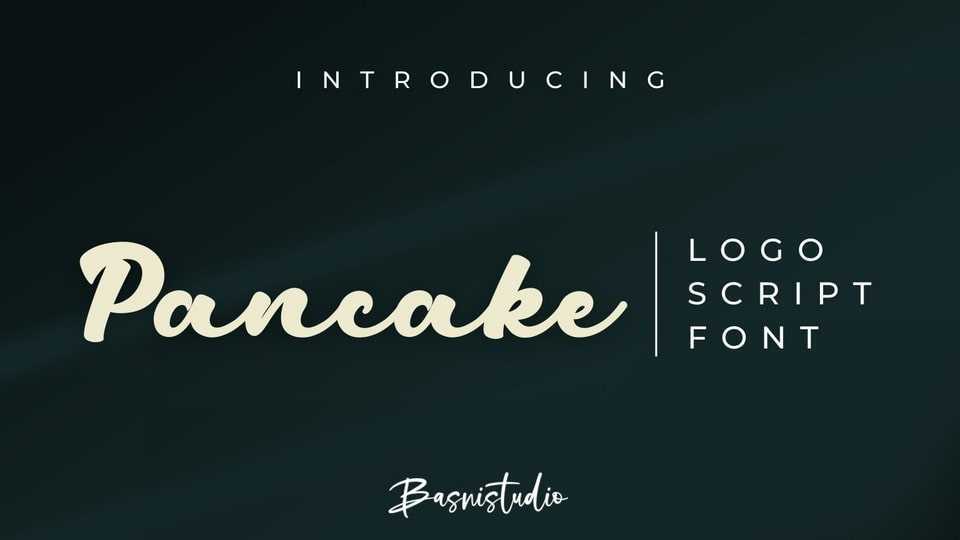
Download Pancake font, a natural cursive script typeface inspired by the casual elegance of everyday handwriting with its soft curves and seamless connections.